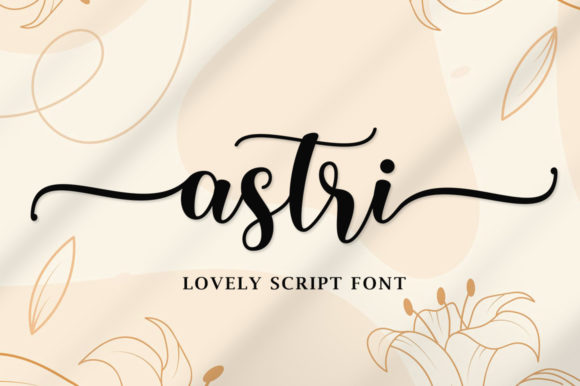
Astri Script Font: Elevate Your Designs with Luxury and Elegance
Are you looking for a font that can add a touch of luxury and sophistication to your design projects? Look no further than the Astri Script Font. This beautiful light handwritten font is designed to make a stunning impact, and its unique feel is sure to set your designs apart from the rest.
What Makes Astri Script Font So Special?
Astri Script Font is a carefully crafted font that is designed to evoke a sense of elegance and refinement. Its light and airy feel makes it perfect for designs that require a touch of sophistication, such as luxury branding, high-end packaging, and elegant stationery.
One of the standout features of Astri Script Font is its unique feel. The font has a distinctive handwritten quality that gives it a personal and intimate feel, making it perfect for designs that require a touch of warmth and personality.
The Power of PUA Encoding
Astri Script Font is PUA (Private Use Area) encoded, which means that you can access all of the amazing glyphs and ligatures with ease. PUA encoding allows designers to access a wide range of characters and symbols that are not available in standard fonts, giving you more creative freedom and flexibility.
With Astri Script Font, you can easily access a wide range of glyphs and ligatures, allowing you to create complex and beautiful designs with ease. Whether you’re creating a logo, a brochure, or a website, Astri Script Font gives you the tools you need to create stunning designs that will leave a lasting impression.
Astri Script Font is perfect for designers and crafters who are looking for a font that can add a touch of luxury and sophistication to their designs. Whether you’re creating digital designs or handmade crafts, Astri Script Font is the perfect choice.
Designers will love the flexibility and versatility of Astri Script Font, which can be used for a wide range of design projects, from branding and packaging to web design and social media graphics.
Crafters will love the personal and intimate feel of Astri Script Font, which is perfect for handmade crafts such as journaling, scrapbooking, and card making.
Tips for Using Astri Script Font
Here are a few tips for using Astri Script Font in your designs:
- Use Astri Script Font for headlines and titles to add a touch of luxury and sophistication to your designs.
- Pair Astri Script Font with a simple sans-serif font for a clean and elegant look.
- Use the glyphs and ligatures to add a personal touch to your designs.
| Font Name | Astri Script Font |
| Author | madjack.font |
Astri Script Font is a beautiful and elegant font that is perfect for designers and crafters who are looking for a touch of luxury and sophistication in their designs. With its unique feel and stunning impact, Astri Script Font is sure to elevate your designs to the next level.